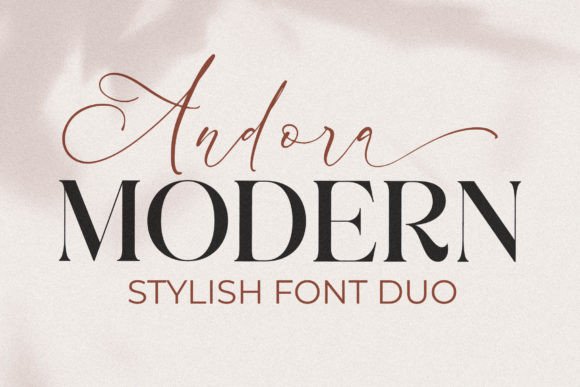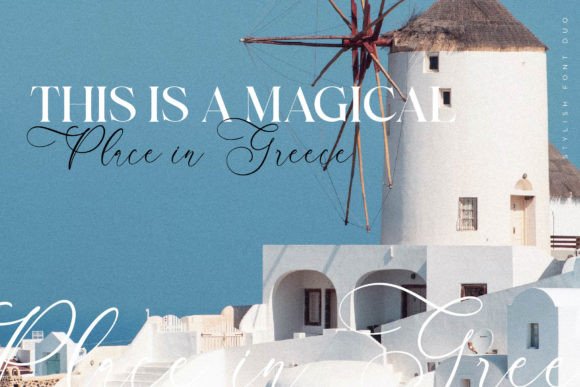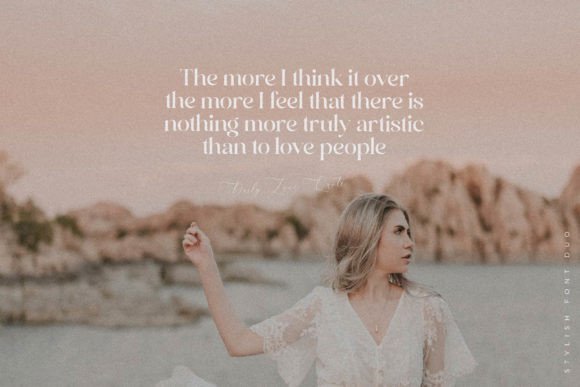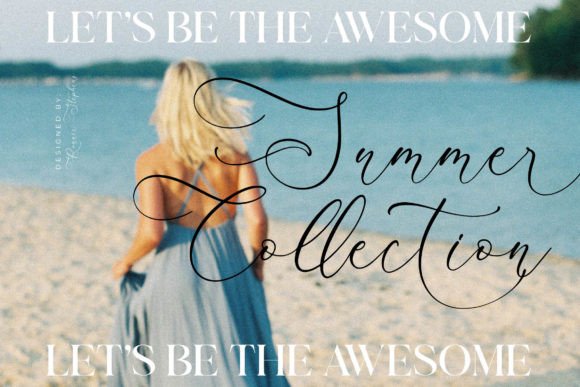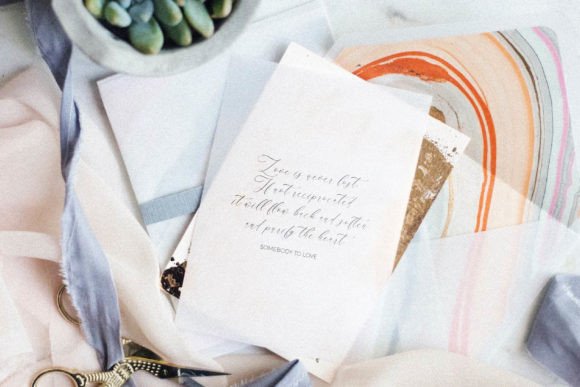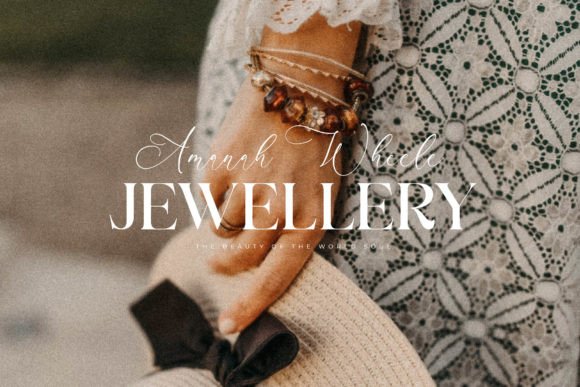
Andora Modern Font
Andora Modern is a stylish and gorgeous font duo (serif and script) perfect for your favorite projects. Fall in love with its incredibly distinct and timeless style and use it to create spectacular designs!